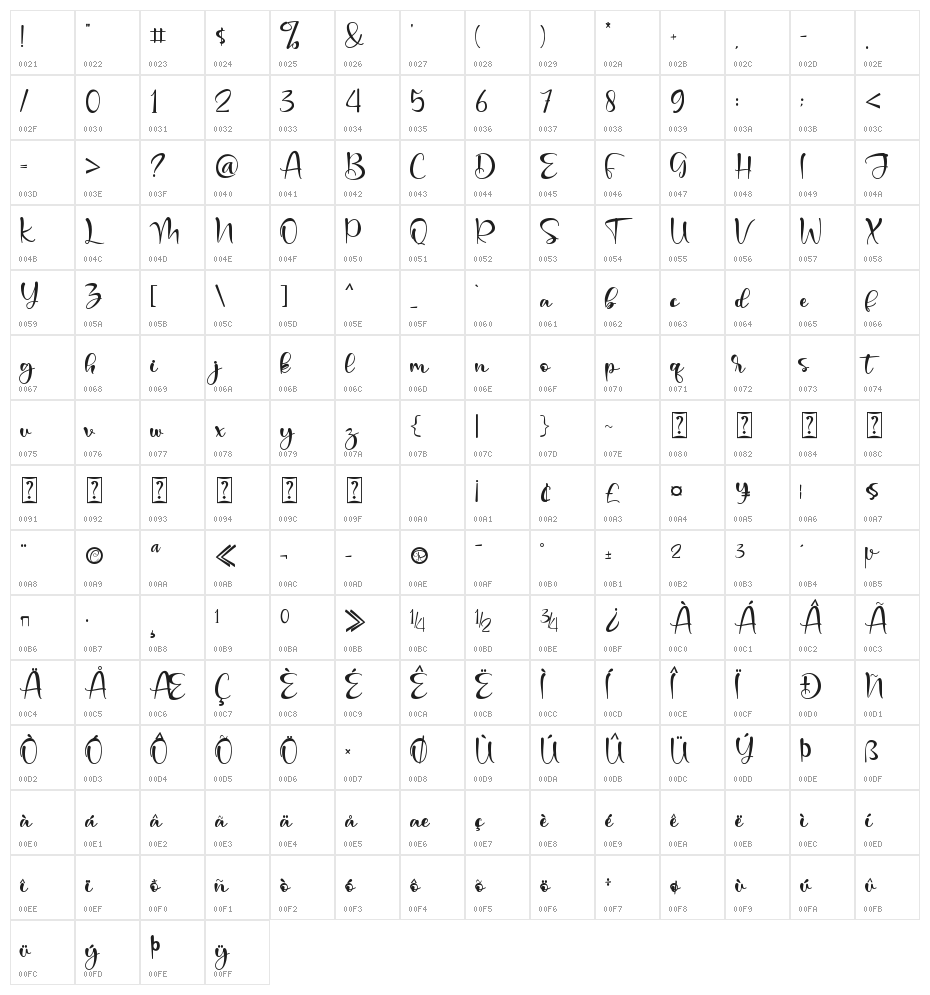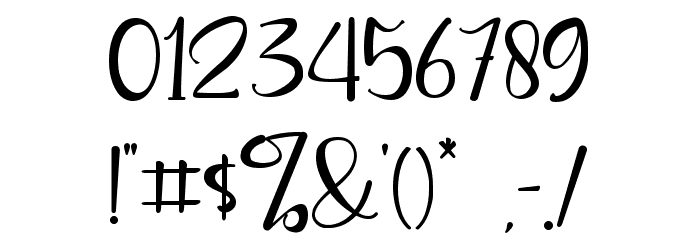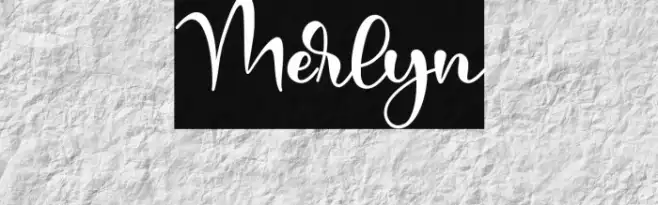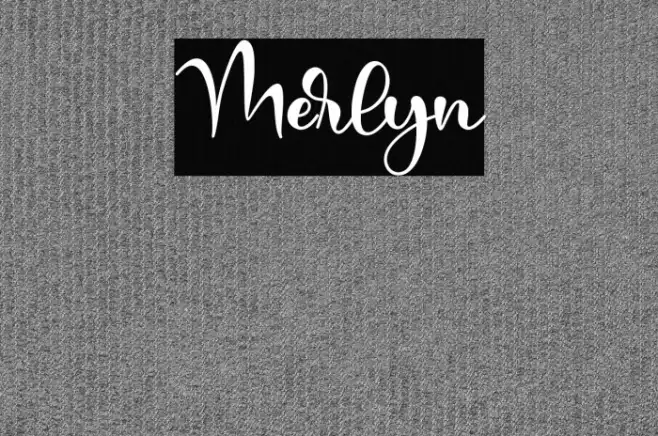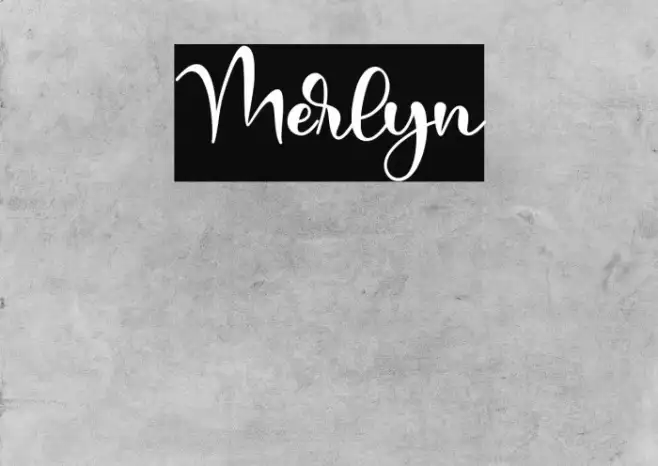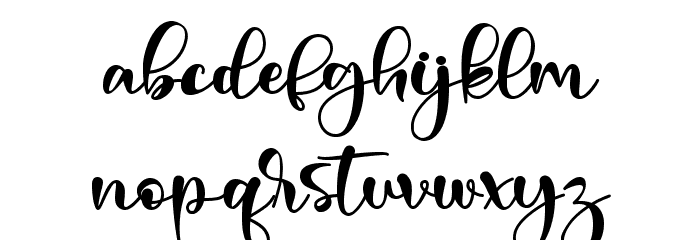
Merlyn Font
Merlyn Description
This font is a lively and expressive script style that combines elegance with a playful touch. The uppercase letters are bold and dynamic, featuring sweeping curves and flourishes that give them a sense of movement. The lowercase letters maintain a consistent flow, with rounded forms and smooth connections that enhance readability. The numerals are well-balanced, complementing the overall style with their rounded and slightly whimsical appearance. Special characters are thoughtfully designed to match the font's energetic and artistic vibe, making it suitable for creative and decorative purposes.
| Proposed Projects | Ideal for wedding invitations, greeting cards, branding projects, and any design that requires a touch of elegance and creativity. |